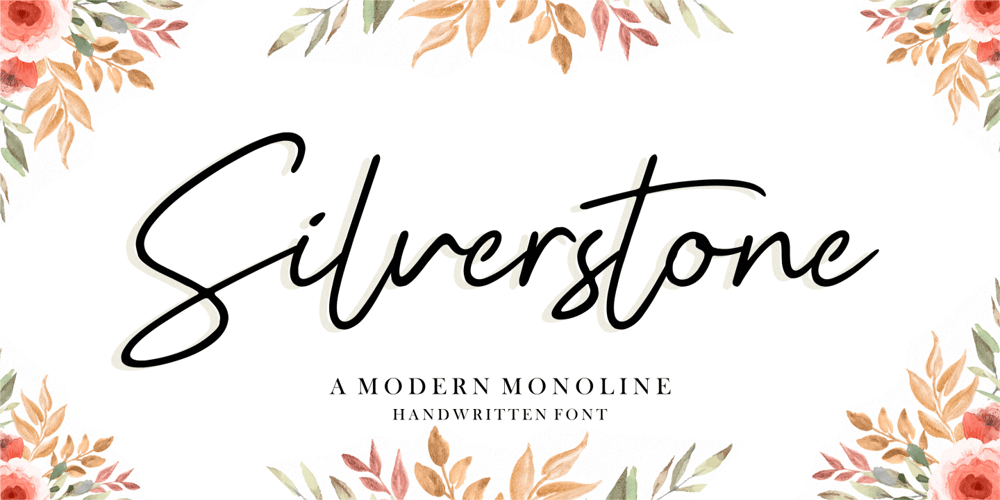
Silvertone Font Family was designed by Restu Angga and published by Balpirick. Silvertone contains 1 styles and family package options. Silvertone is a Modern Monoline Handwritten Font.Silvertone is perfect for product packaging, branding project, magazine, social media, wedding, or just used to express words above the background.Silvertone also support multilingual.Enjoy the font, feel free to comment or feedback, send me PM or email.Thank you!